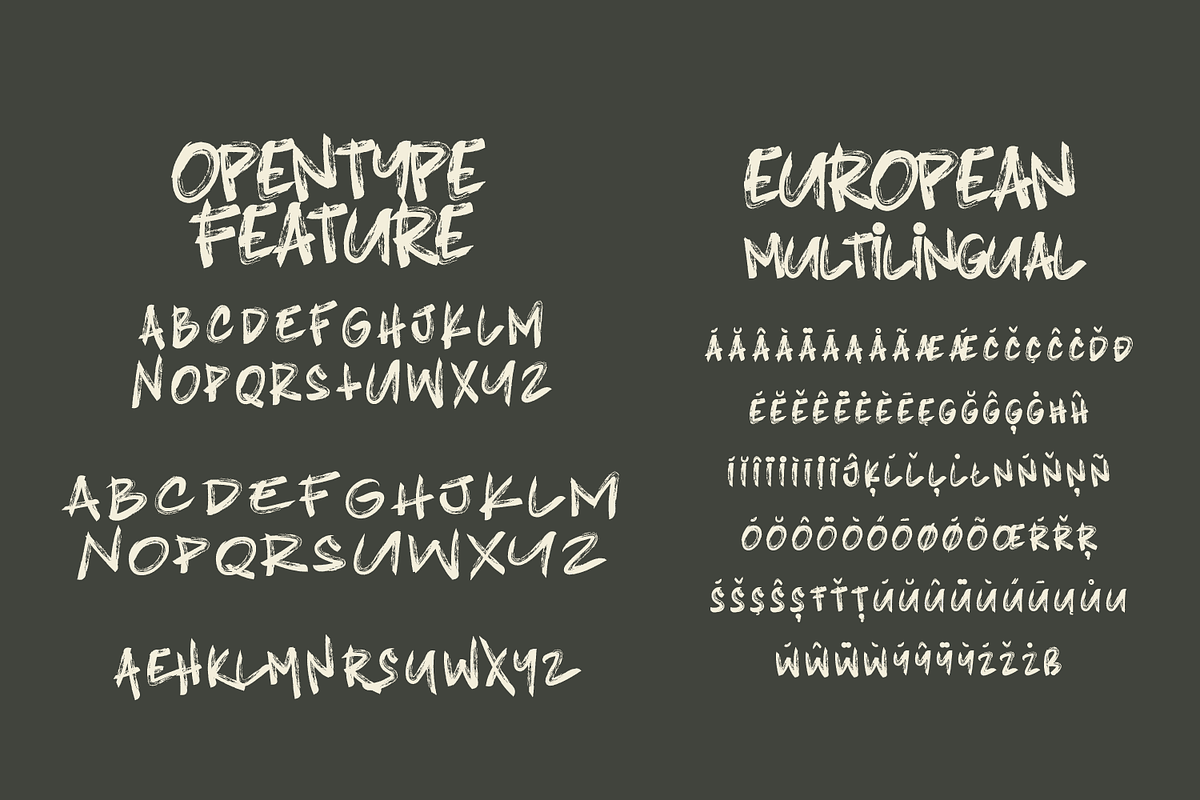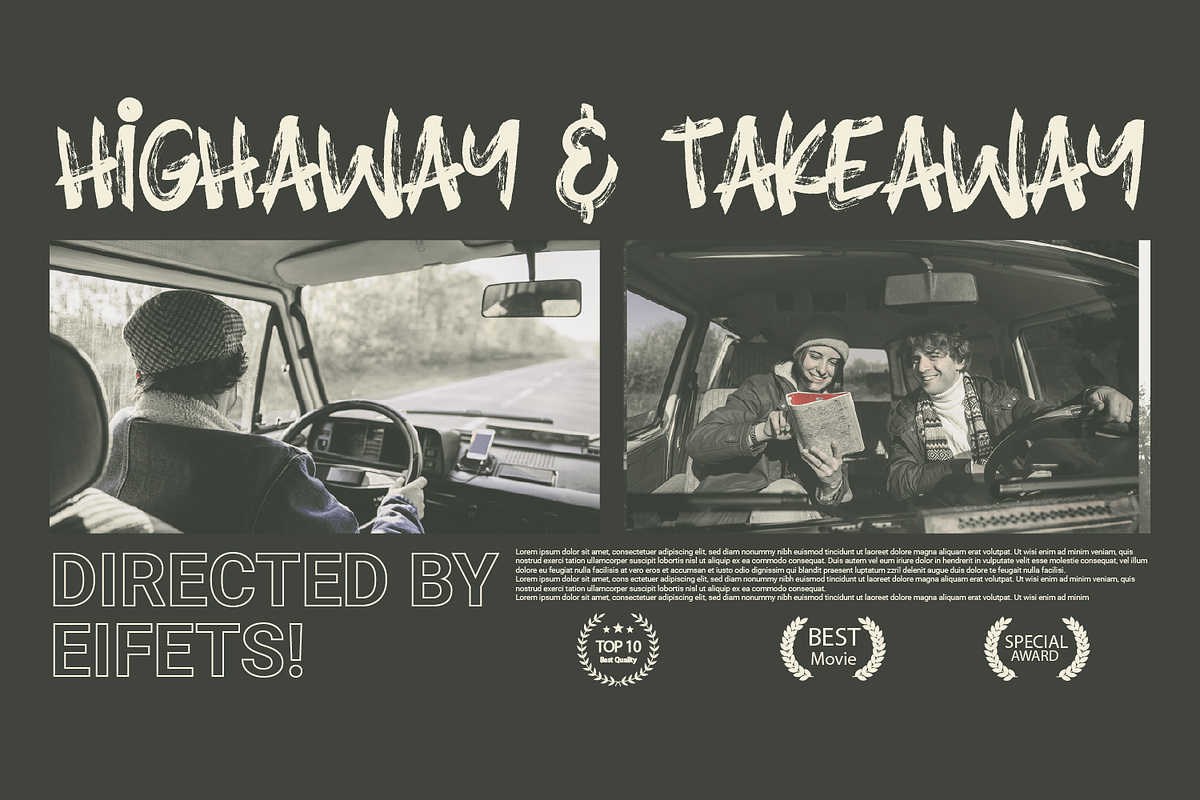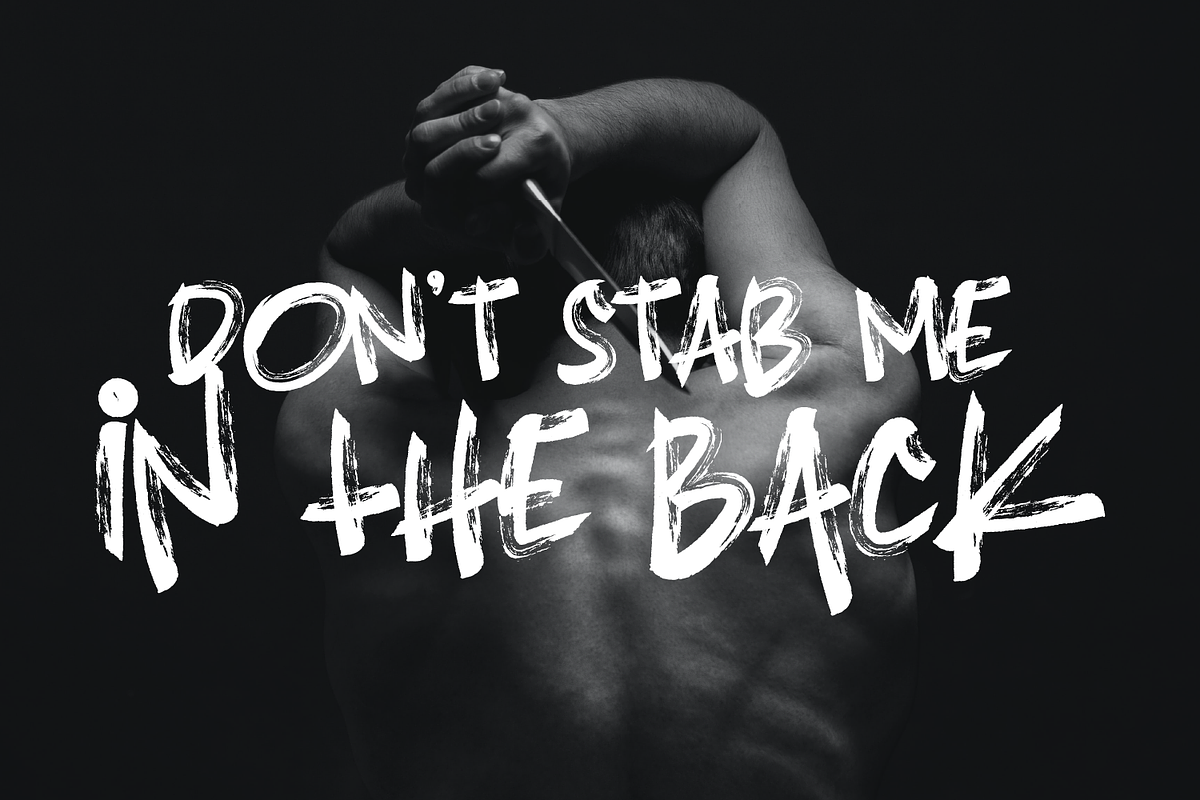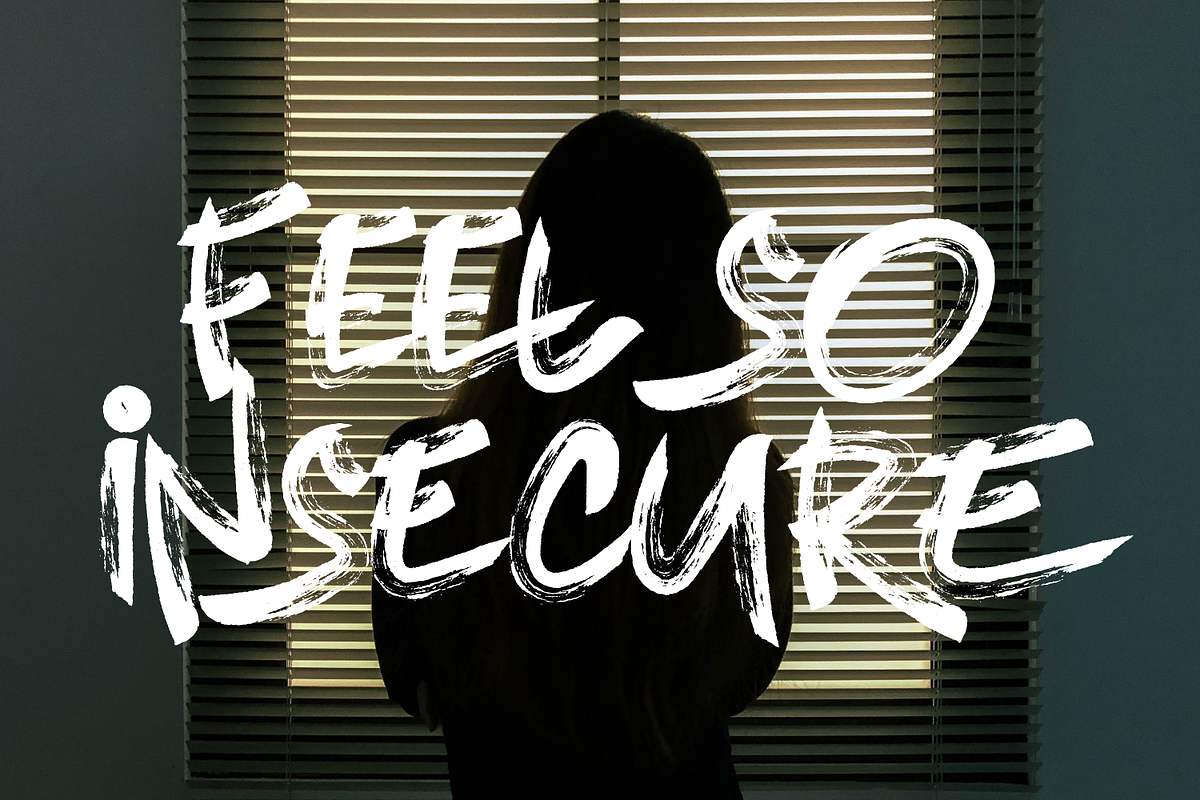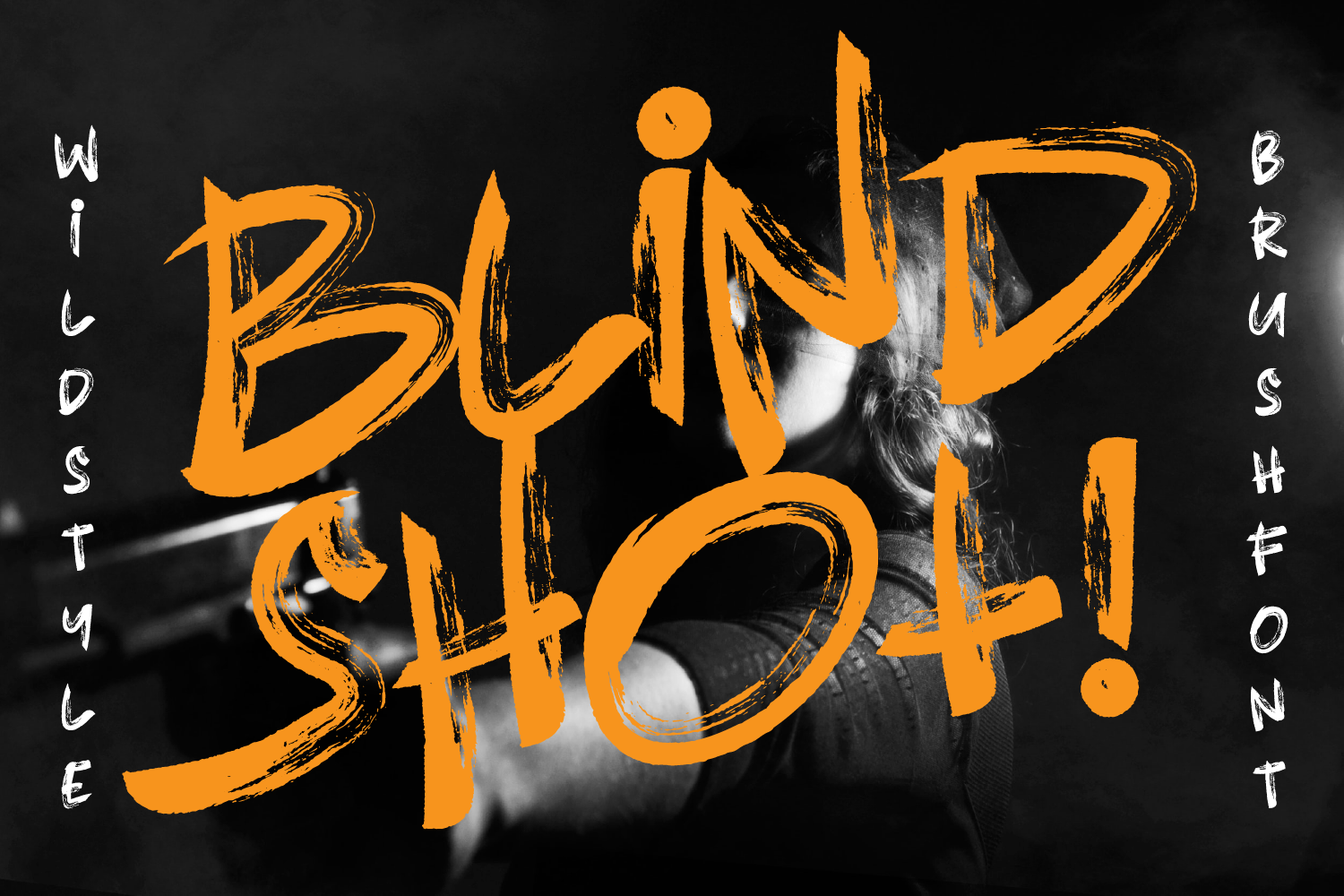
Blindshot - Wild Style Brush Fonts
Introducing the new fonts Blindshot. Blindshot is a Textured Brush. Easy readability,strong. good for your product,company profile,brand and etc.
- European Multilingual
- Stylistic Set 1
- Stylistic Set 2
- Stylistic Set 3
- Stylistic Set 4